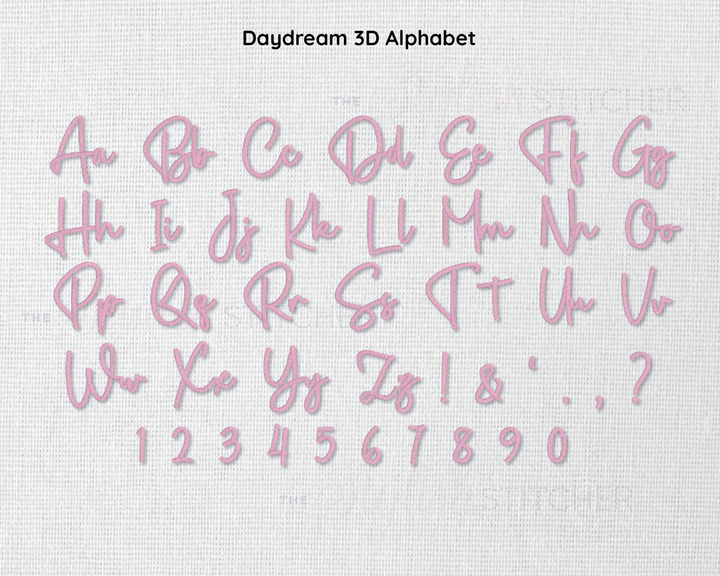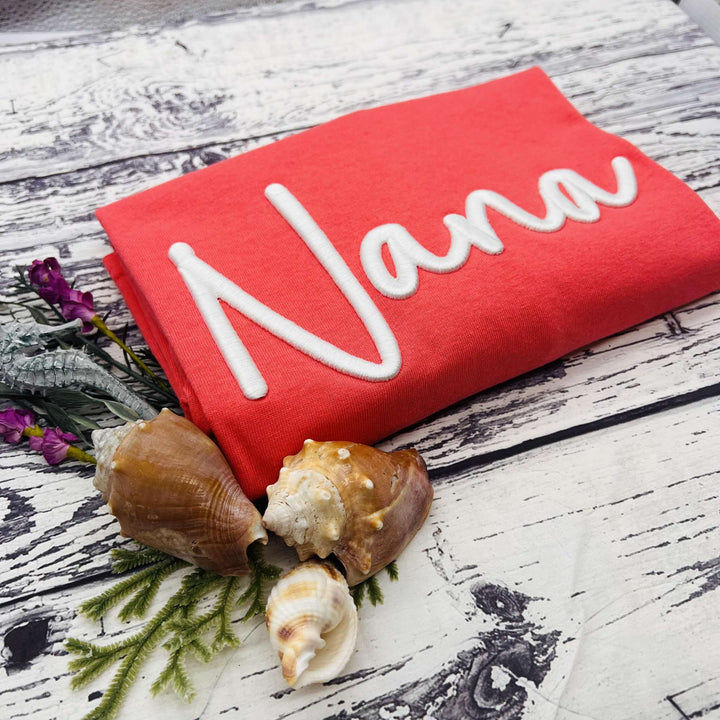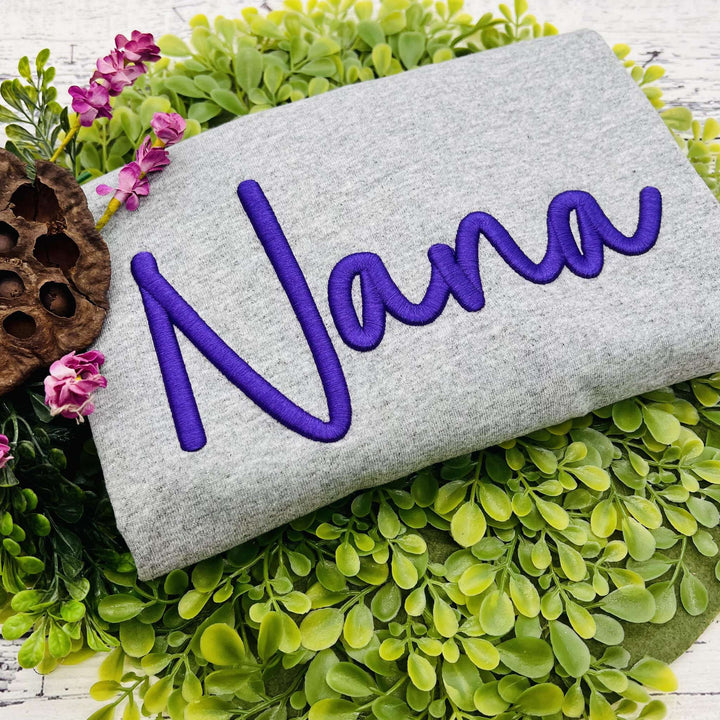
Photograph of stitched out Daydream 3D embroidery font
Photograph of stitched out Daydream 3D embroidery font alphabet
Photograph of sample sweatshirt using Daydream 3D font
Photograph of sample shirt using Daydream 3D font
Daydream 3D Puff Digital Embroidery Font
Introducing the 3D Puff verision of one of our most popular fonts, Daydream. With its intricate and elegant design, Daydream 3D Puff allows you to add a touch of whimsy and charm to any project. Whether you're creating personalized gifts, embellishing clothing, or adding a special touch to your home decor, Daydream 3D Puff is sure to make your designs stand out. This machine embroidery font is easy to use and produces beautiful results, giving you the confidence to take your embroidery to the next level. Let your imagination run wild and create your own dreamy masterpiece with Daydream 3D Puffembroidery font.